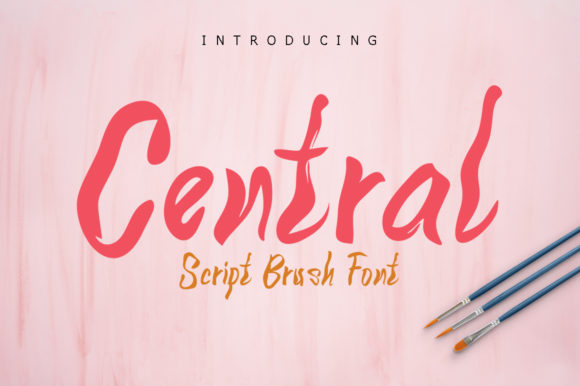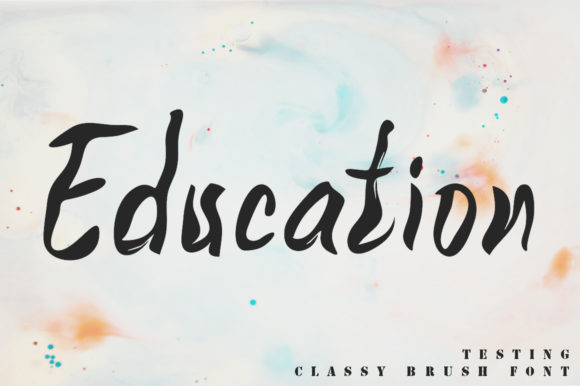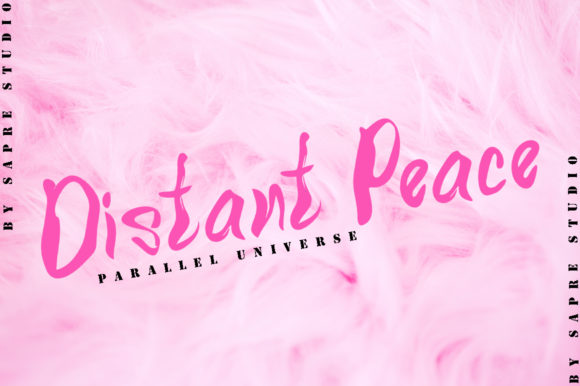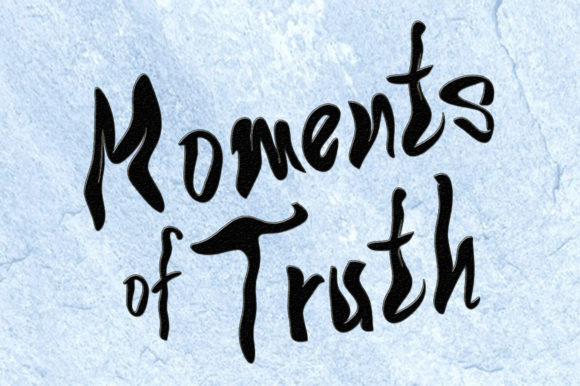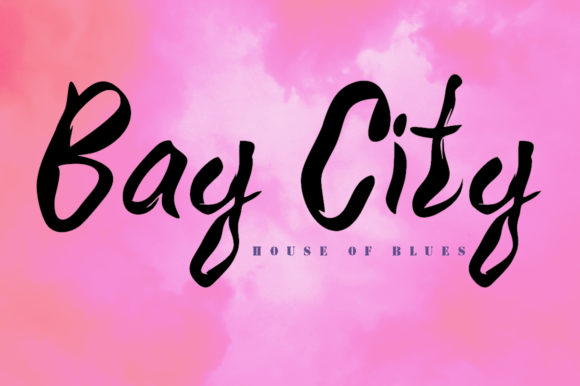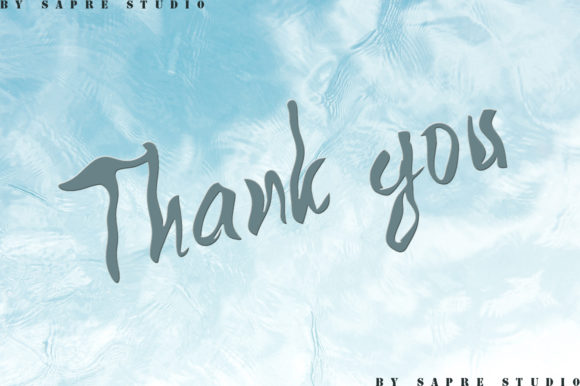
HomeScript FontsCentral Font Script Fonts Central Font FacebookXPinterestWhatsApp Central Font Poster 2 Central Font Poster 3 Central Font Poster 4 Central Font Poster 5 Central Font Poster 6 About Central Font Central is a cute handmade pen marker script, designed to be easily applied. Get inspired by its casual feel. DOWNLOAD ON CREATIVE FABRICAThis font is sold and delivered by Creative Fabrica. Font Canyon may earn a commission if you buy through this link. People also explored Cultural Beauty Font Pompadour Font Wonder Scribble Font Great Sefira Font Lovely Moment Font Cheyra Font Moonline Font Shafeera Fauziah Font 326 0 TagsCentral Font Previous articleRomatrix FontNext articleRosemerry Script Font LEAVE A REPLY Cancel reply Comment: Please enter your comment! Name:* Please enter your name here Email:* You have entered an incorrect email address! Please enter your email address here Website: Save my name, email, and website in this browser for the next time I comment. Personal Use Free Knox Personal Use Free Read more about this font Ernesthuge Personal Use Free Read more about this font Manbow Personal Use Free Read more about this font Sehat Selalu Personal Use Free Read more about this font BLOG Where to Buy American Fonts Online in 2024 Where to Buy American Fonts Online: The Ultimate Guide for 2024 Looking for the perfect American font to elevate your design projects? You're in the... Elegant Wedding Invitation Fonts – Handwritten & Script Fonts How to Install and Use Fonts on Windows, macOS, and Web Projects Top 10 Handwritten Fonts That Elevate Your Designs